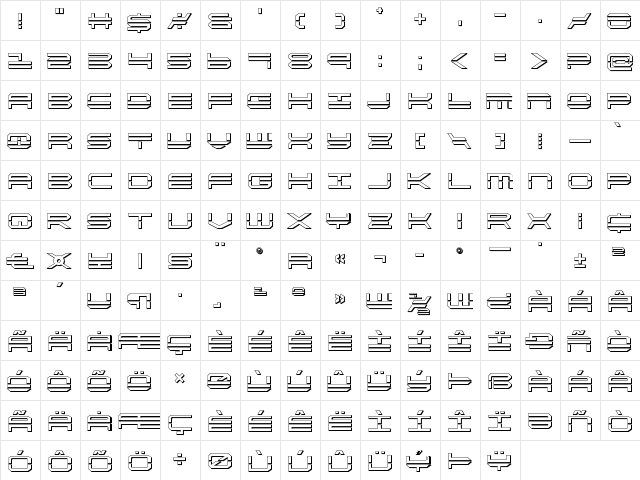
QuickStrike 3D Regular
Design Context for QuickStrike 3D Typeface
QuickStrike 3D is a composed and adaptable typeface that performs quietly and consistently across a wide range of design contexts.